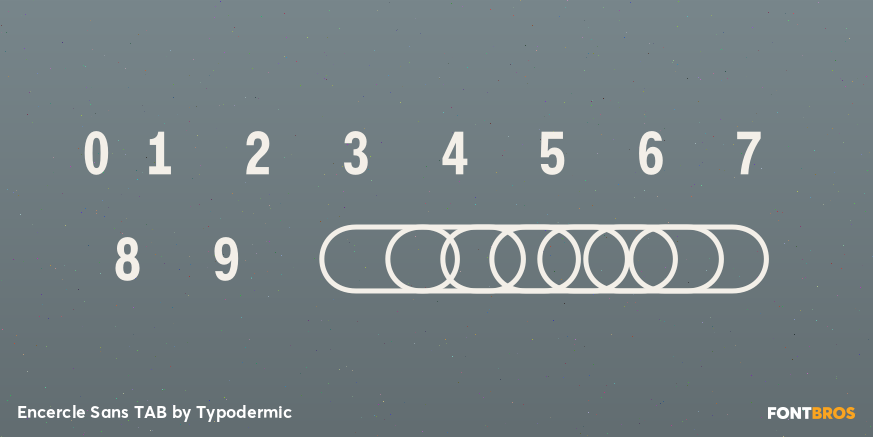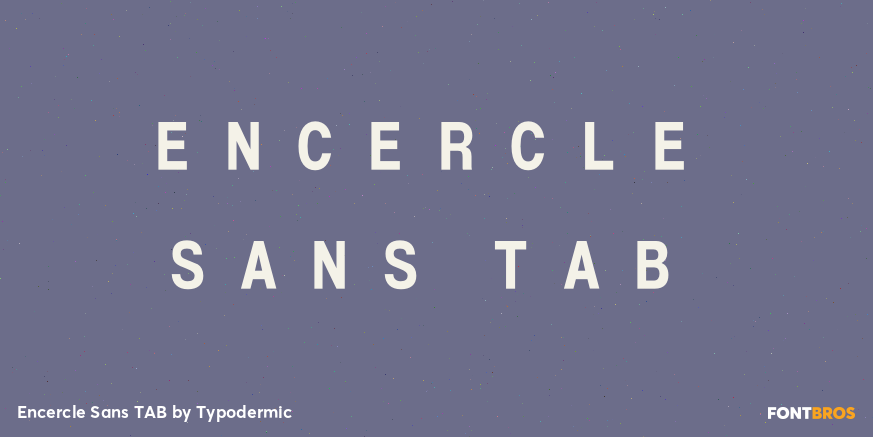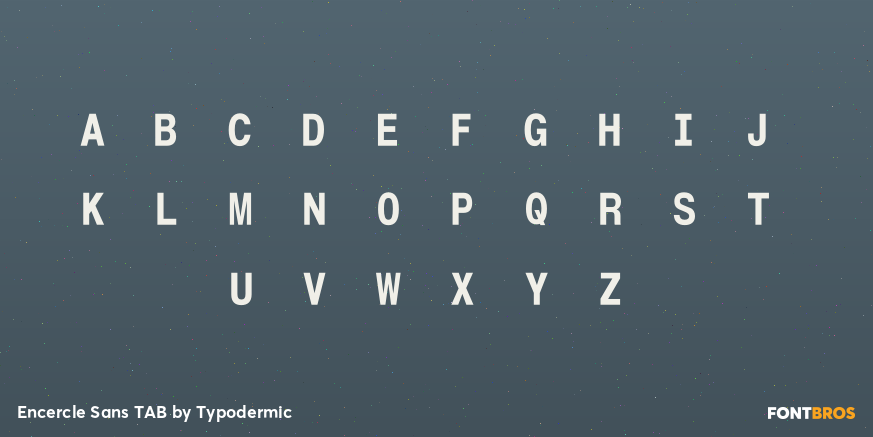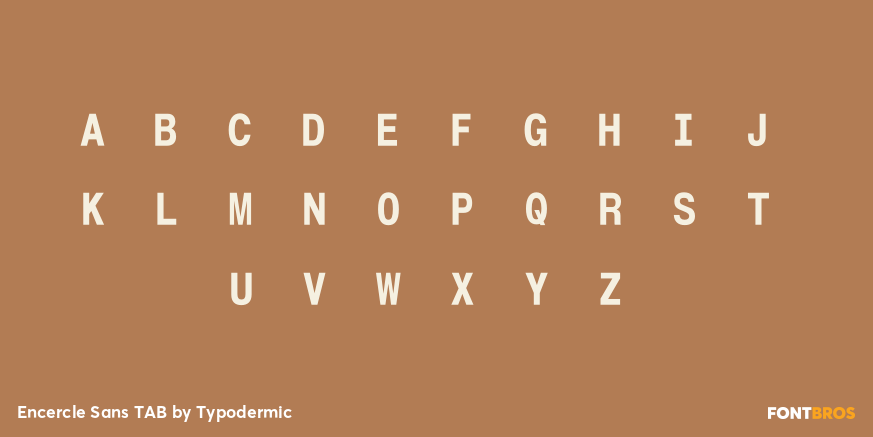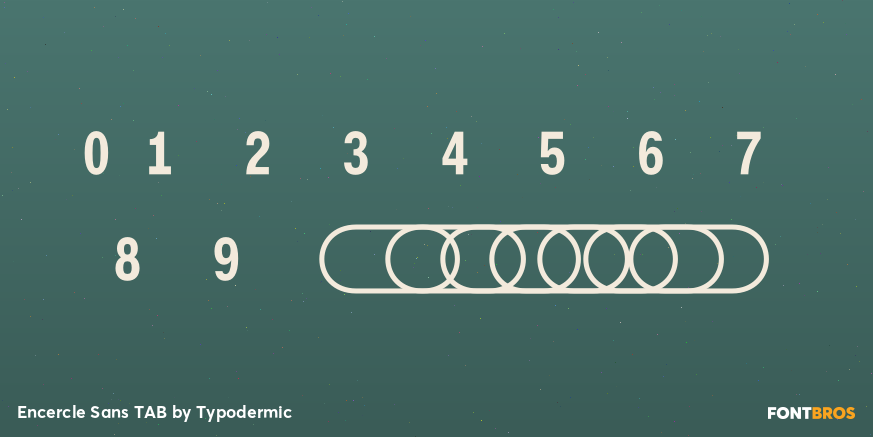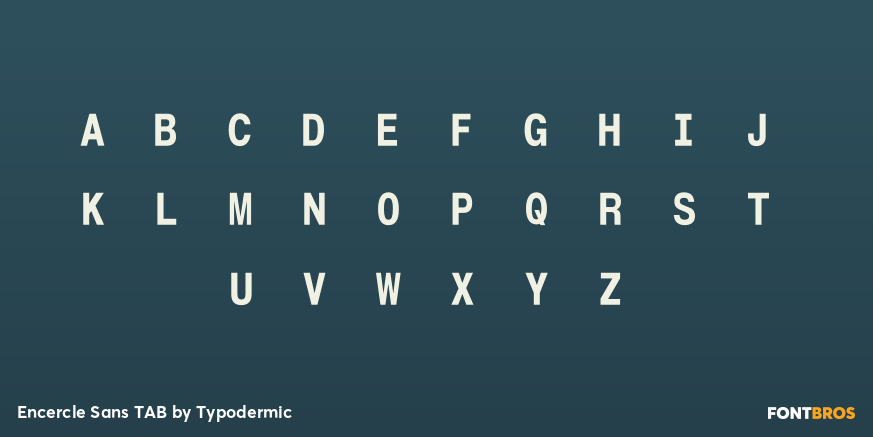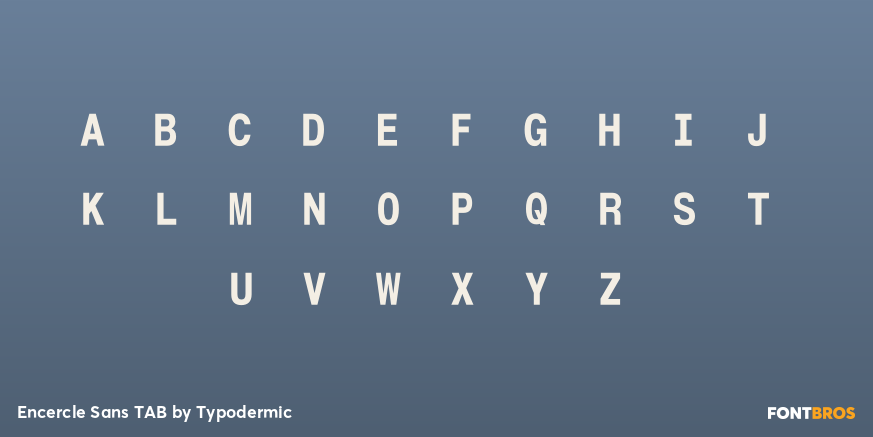
Encercle Sans TAB
Buy NowEncercle Sans TAB frames text in a horizontal capsule with rounded ends, creating a compact tag that accommodates short names as comfortably as numbers. TAB Bold reverses the capsule into a solid field with light lettering. It is an inverse tag, not merely a thicker version of the outline.
Use TAB for transit route names, conference schedule tracks, festival-map categories, and interface filter labels that need to behave like consistent pills or tabs. It serves searches for a capsule-label font, pill-tag font, or editable route-marker typeface.